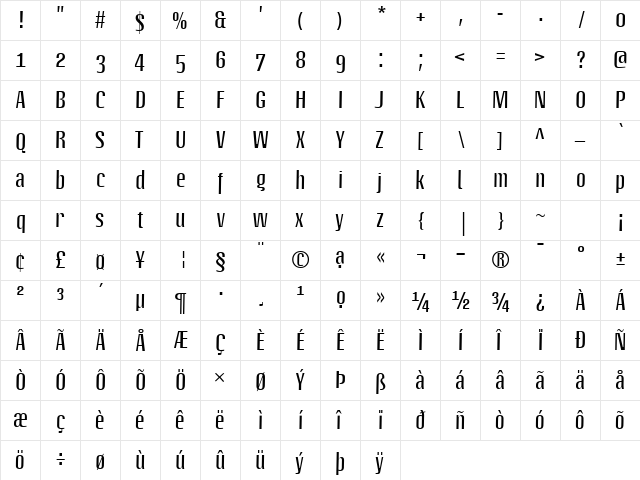
LTOctane Regular
Design Context for LTOctane Typeface
LTOctane offers clean, dependable letterforms without strong stylistic allegiance, making it a practical choice for designers who need flexibility.
Pro Tip: Use LTOctane in both headline and body roles to test its range before committing to a single application.